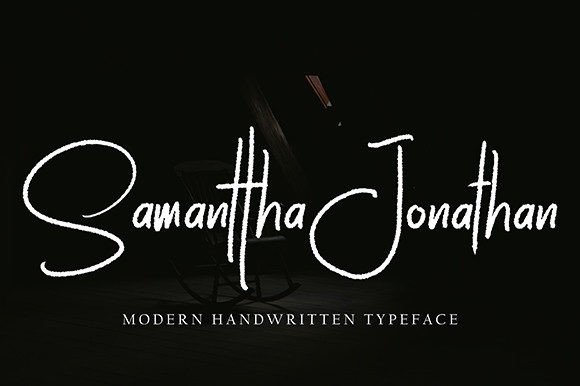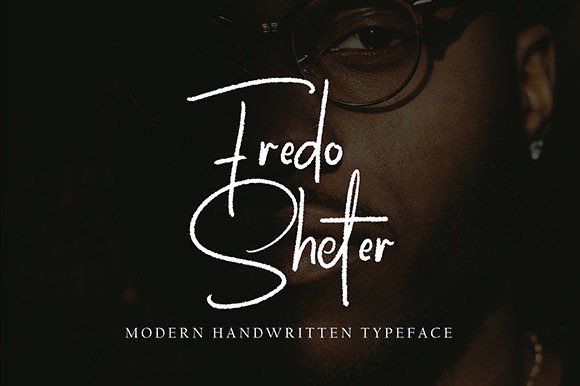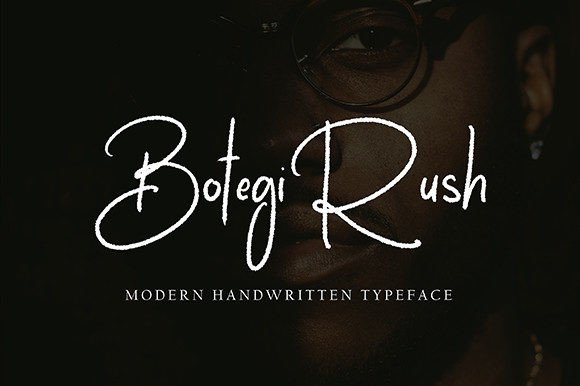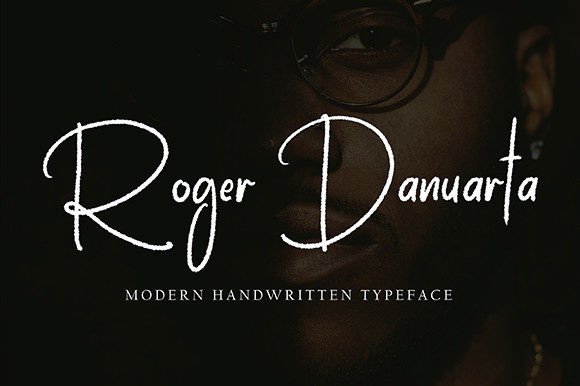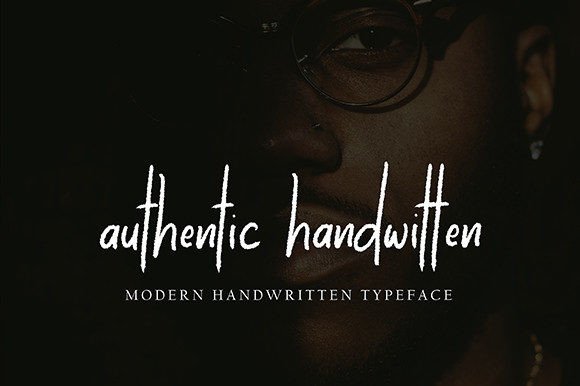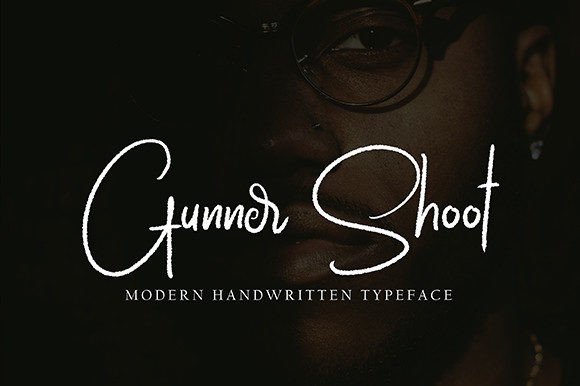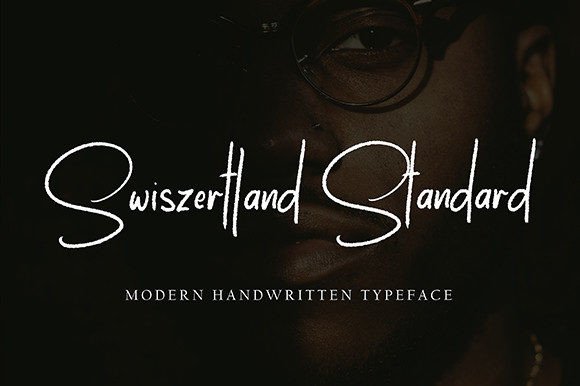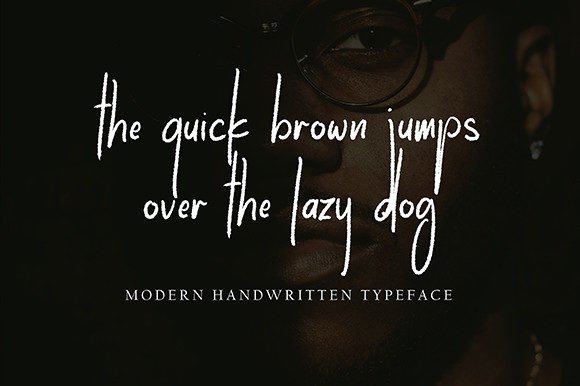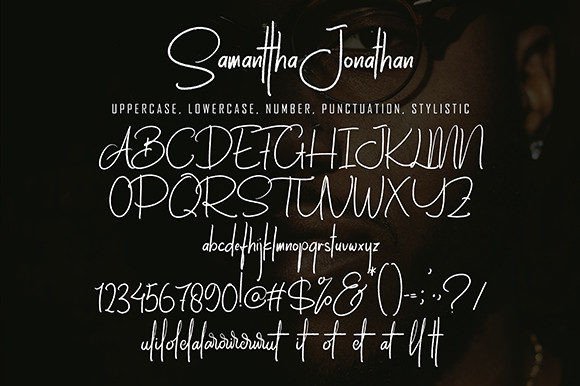
Samanttha Jonathan Font
About Samanttha Jonathan Font
**Samanttha Jonathan** is more than just a font; it’s a slim, sleek, and beautiful handwritten expression crafted for versatility and style. This font is perfect for a myriad of projects, including quotes, logos, blog headers, posters, branding, letters, invitations, stationery, and more.
The allure of **Samanttha Jonathan** lies in its slim and sleek design, making it an ideal choice for projects where a touch of elegance and contemporary style is desired. Whether you’re creating impactful quotes, establishing a brand identity with a logo, or designing eye-catching posters, this font is crafted to enhance your text with a modern and sophisticated flair.
Its versatility allows **Samanttha Jonathan** to seamlessly integrate into various design contexts, ensuring that your projects stand out with a touch of beauty. The slim and sleek features of this font contribute to its overall appeal, making it suitable for a wide range of creative endeavors.
Whether you’re working on digital designs, print materials, or personal invitations, **Samanttha Jonathan** is designed to elevate your text and bring a sense of modern beauty to your creations. Let this font be the stylish choice for your quotes, logos, blog headers, posters, branding, letters, invitations, stationery, and beyond.
In summary, **Samanttha Jonathan** is the slim, sleek, and beautiful handwritten font crafted for versatility and style. Perfect for quotes, logos, blog headers, posters, branding, letters, invitations, stationery, and more, this font adds a contemporary touch of elegance to your creative projects.